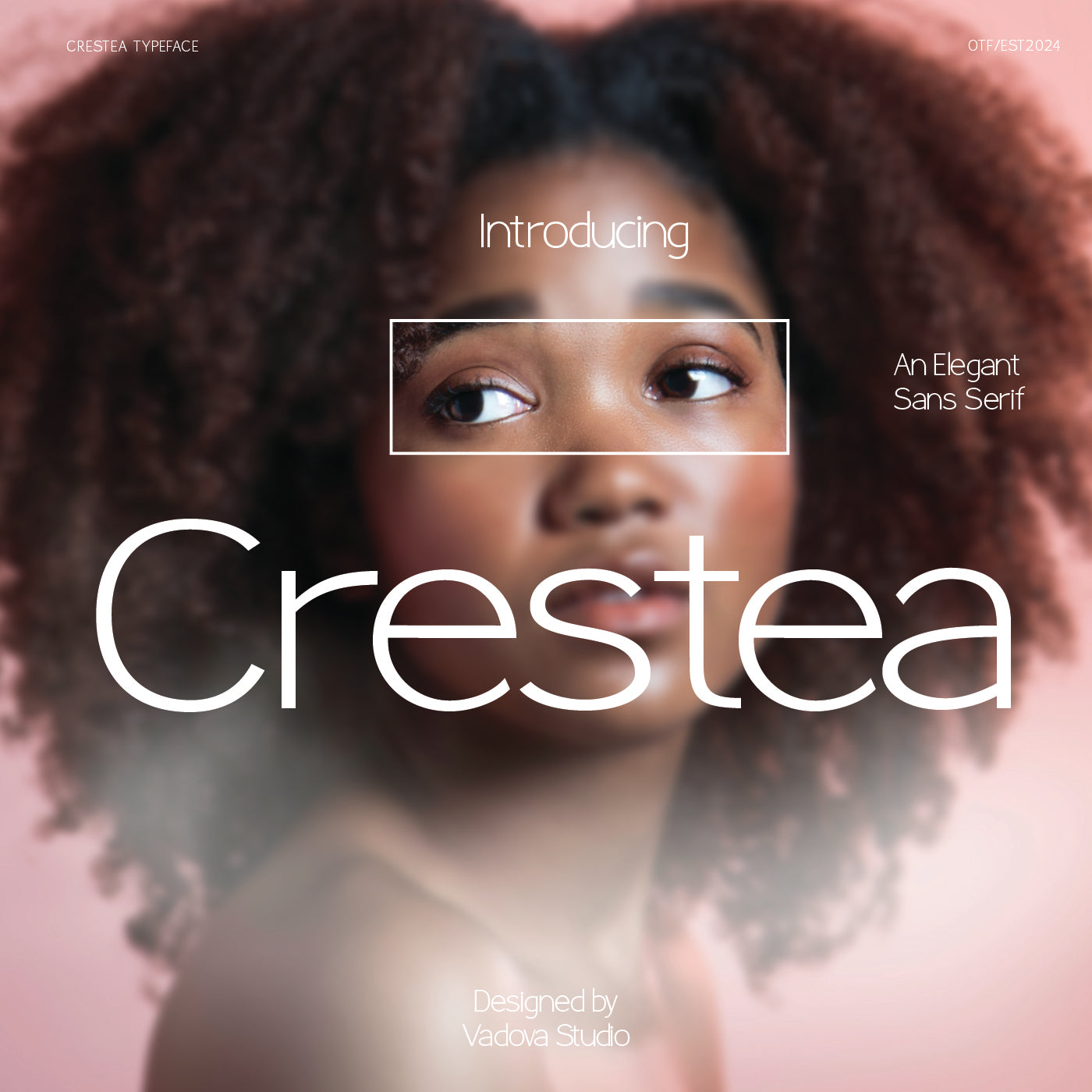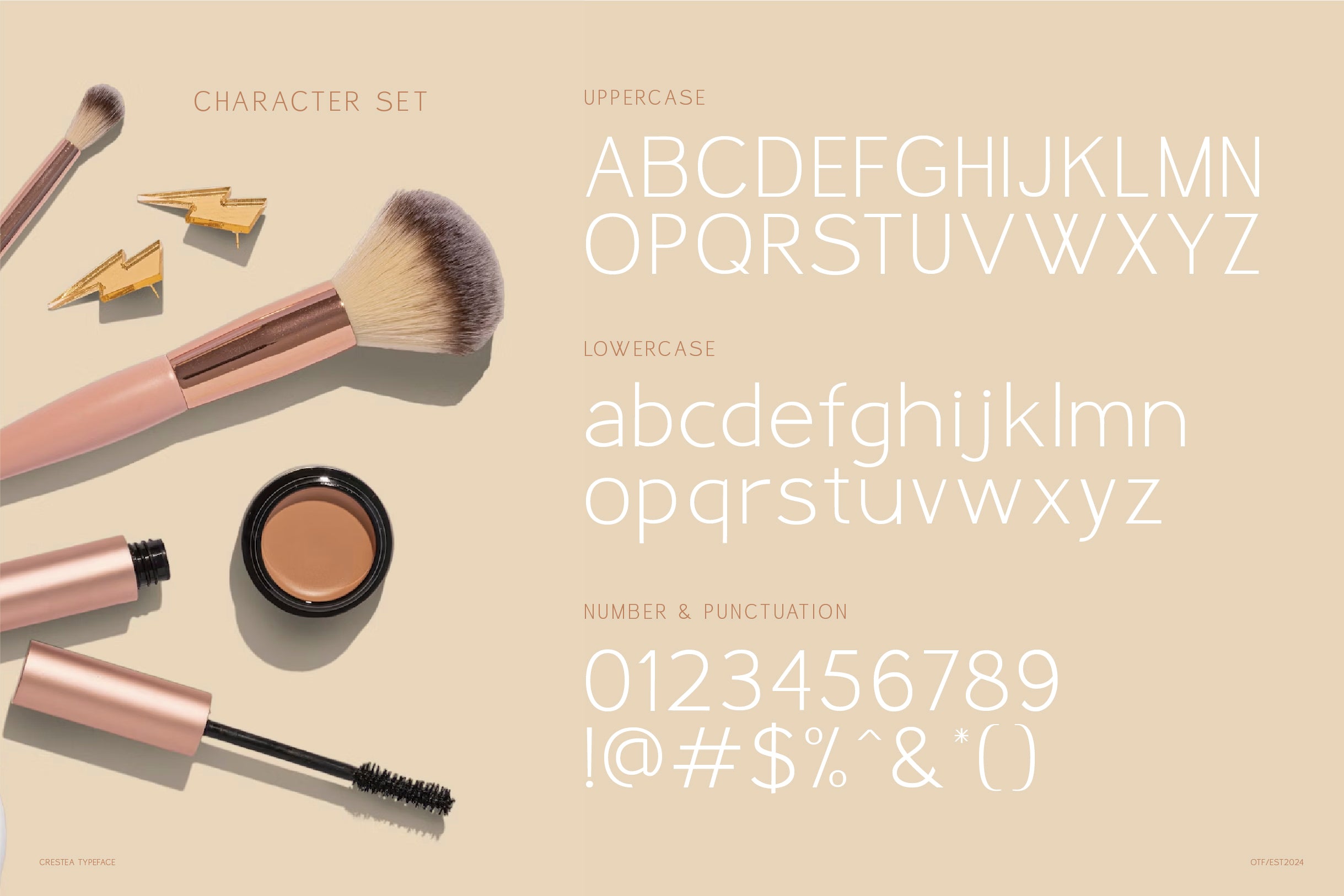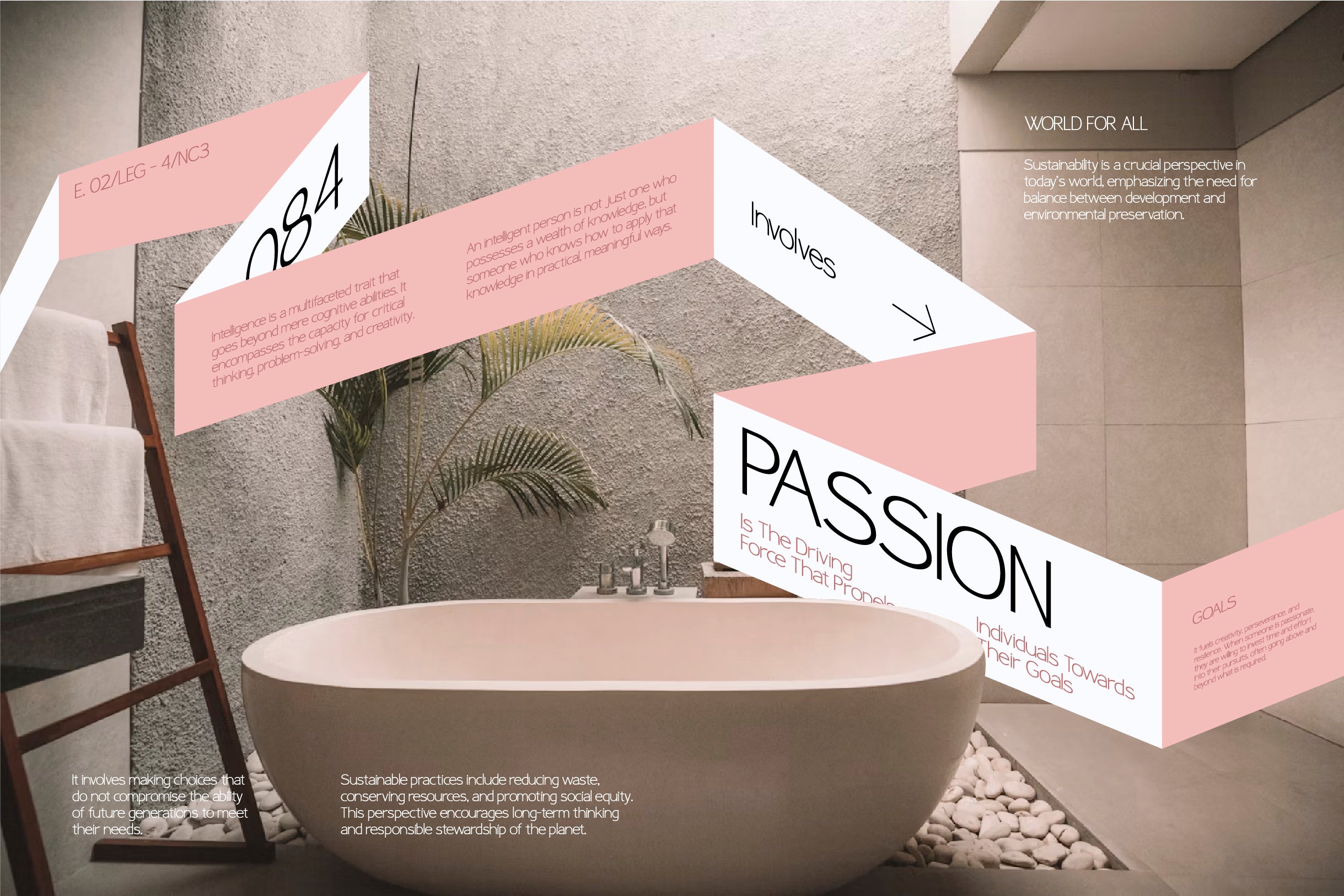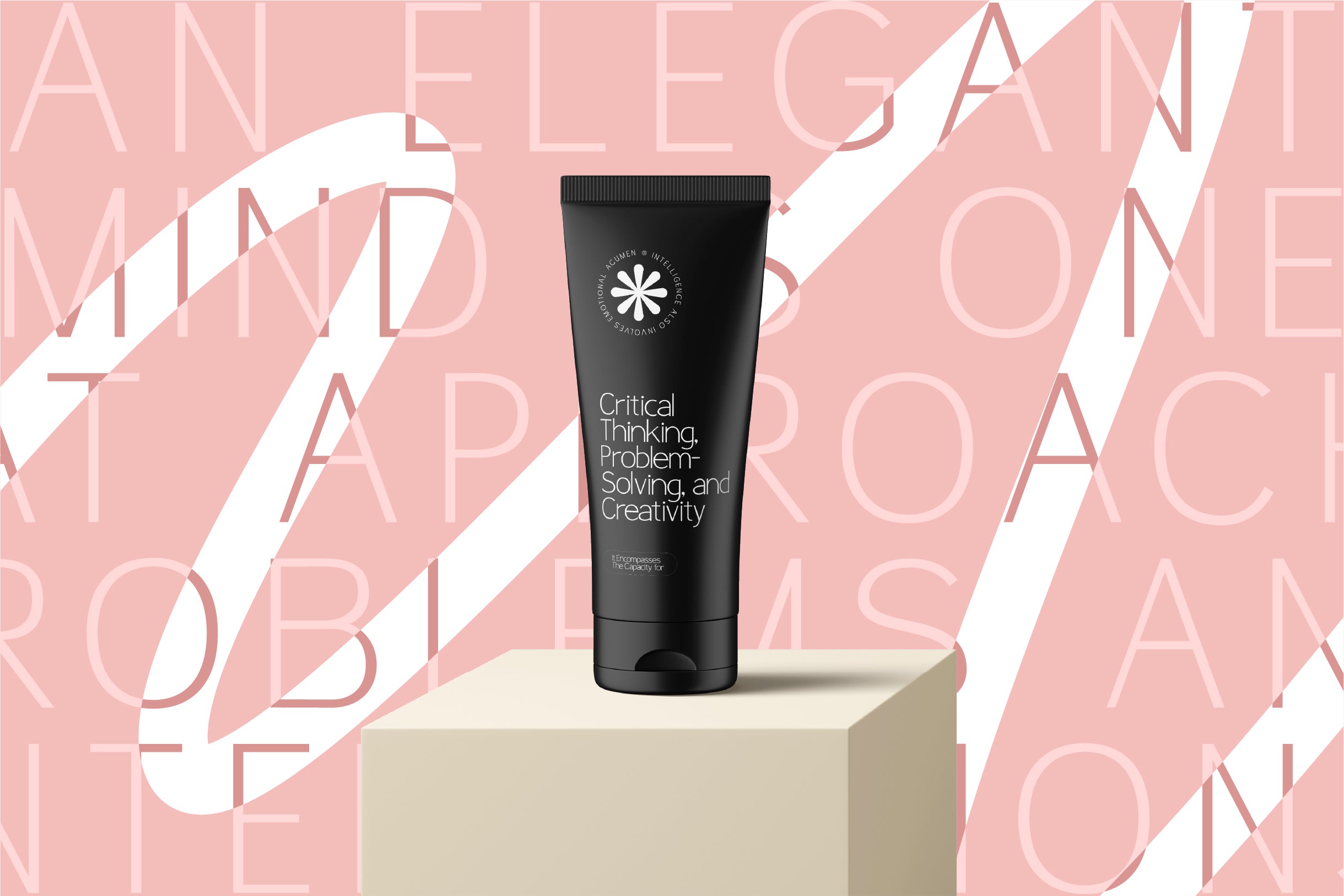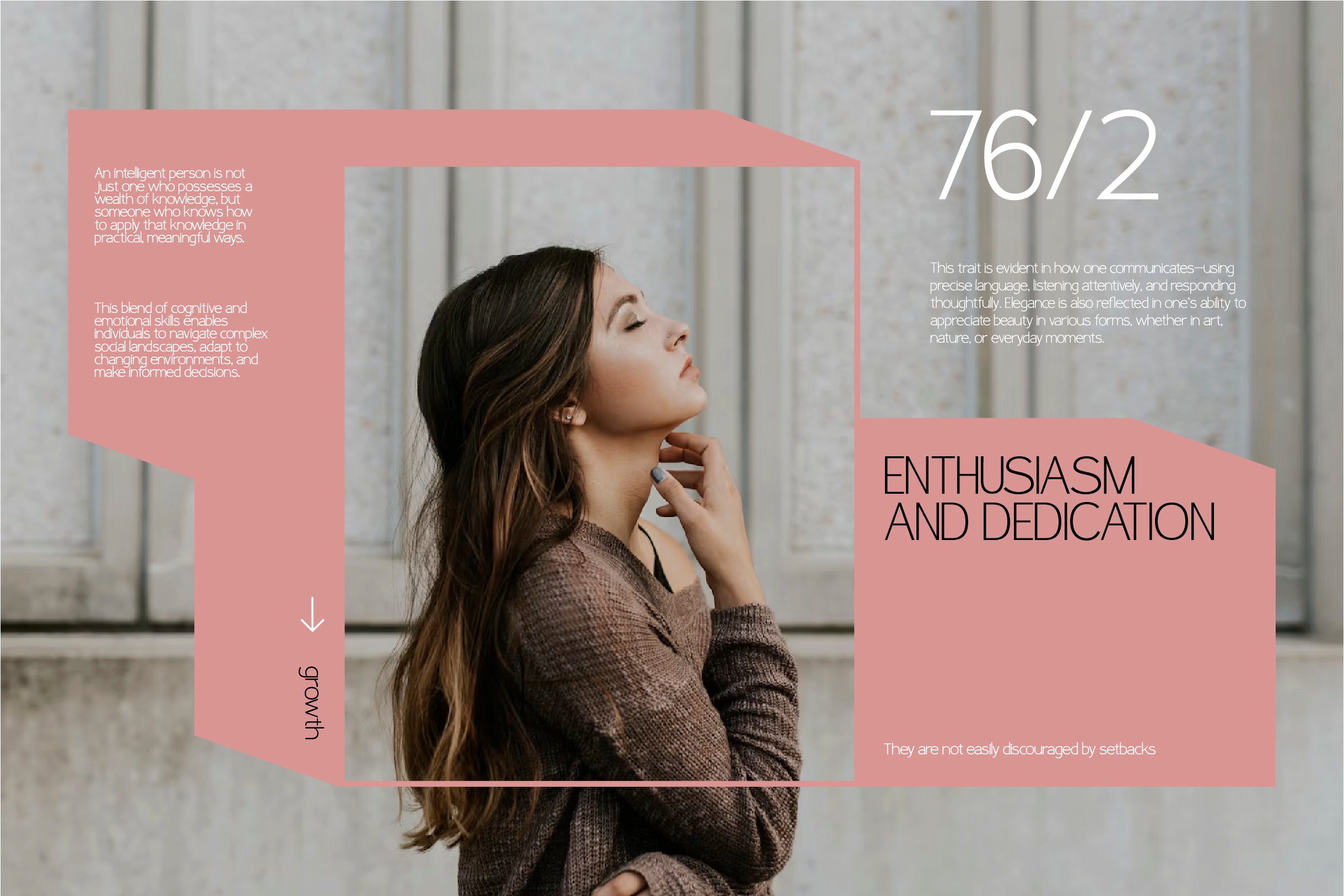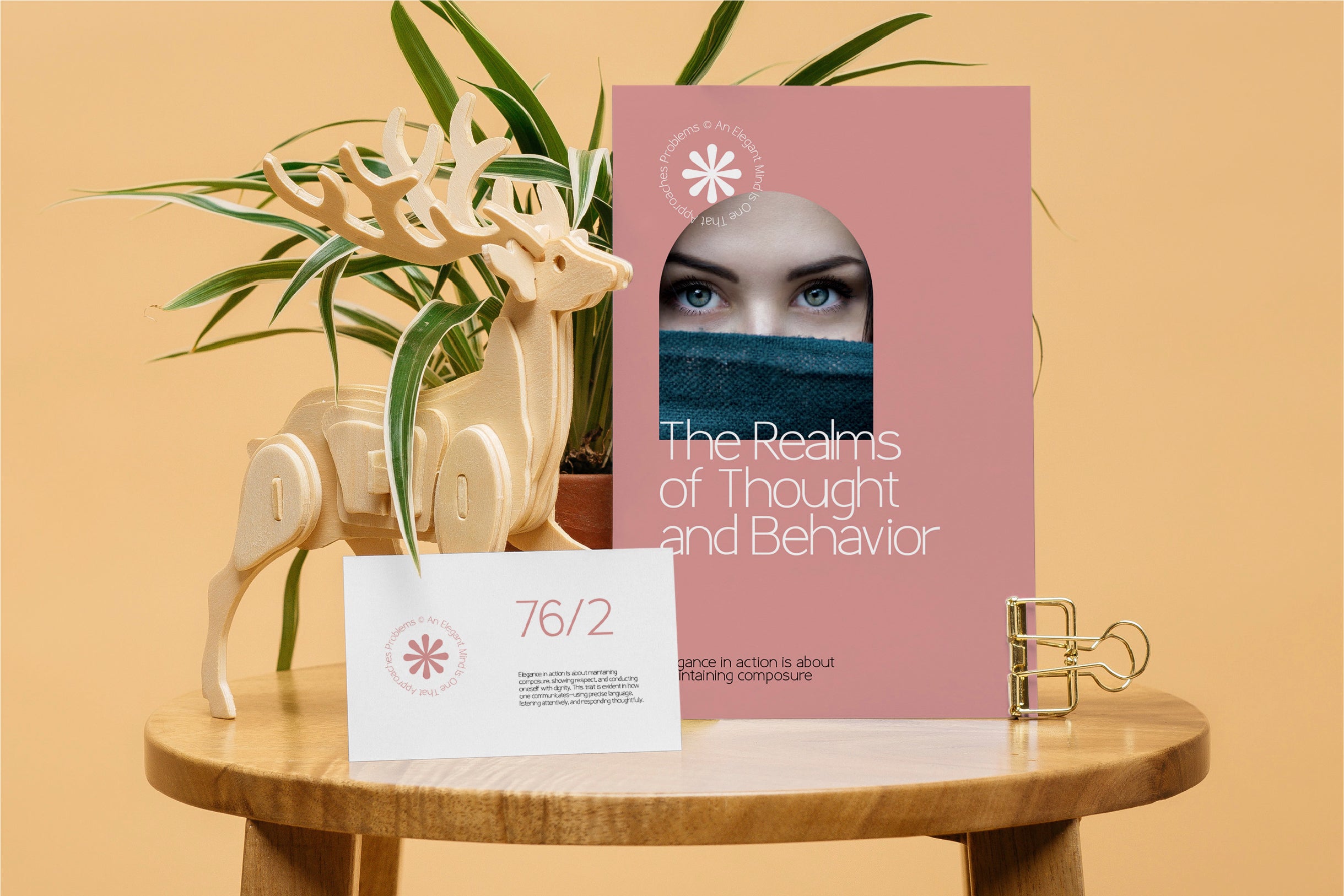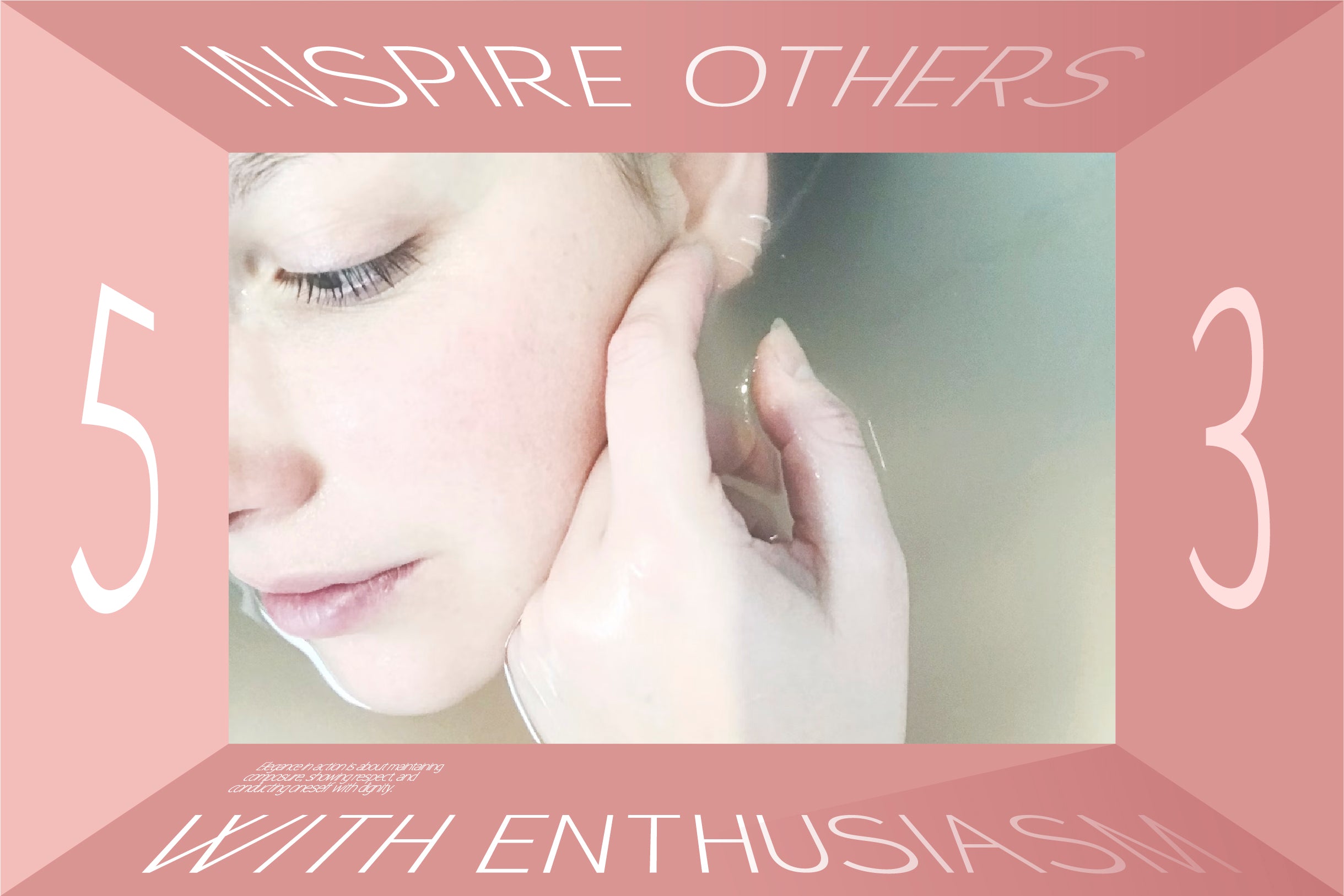
Crestea Elegant Sans Serif Font
Crestea Elegant Sans Serif Font Crestea is an elegant and modern sans serif font designed to bring sophistication and softness to visual communication. With its clean, minimalist strokes and high readability, Crestea is perfect for feminine branding, beauty product packaging, lifestyle magazines, and professional presentations. This typeface blends luxury and simplicity, making it ideal for upscale logos, social media graphics, or editorial layouts. Whether you're designing for a skincare brand or a fashion campaign, Crestea adds a graceful and professional tone.
The Crestea Elegant Sans Serif Font is a modern typeface featuring clean, minimalist strokes designed for high readability. It includes uppercase and lowercase characters, numerals, and punctuation, and is available in OTF format.